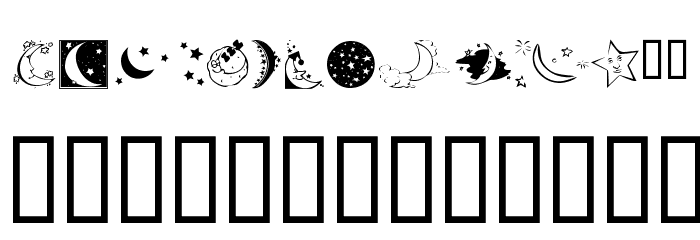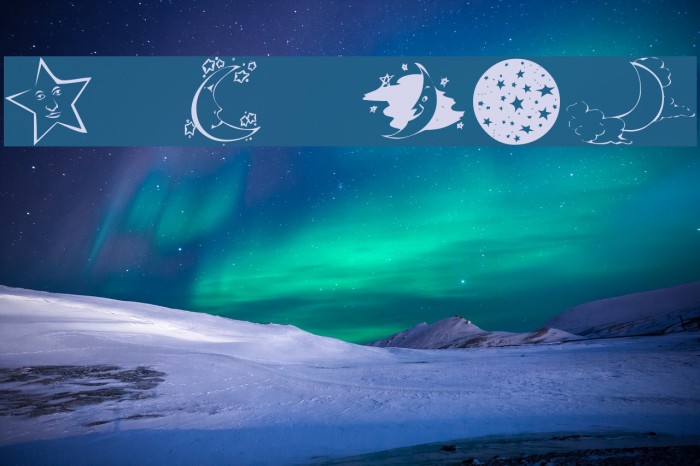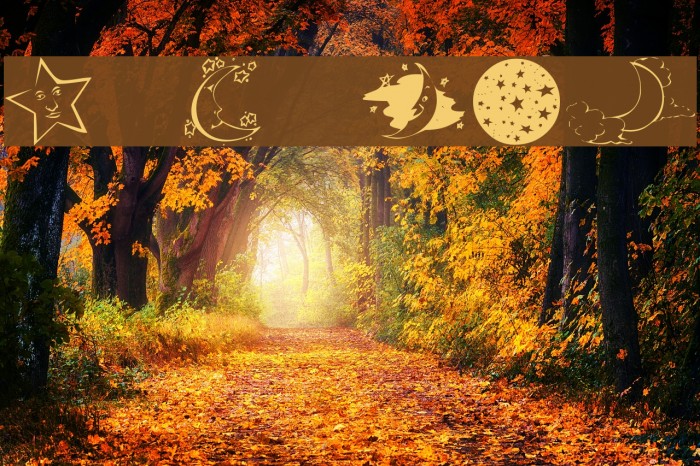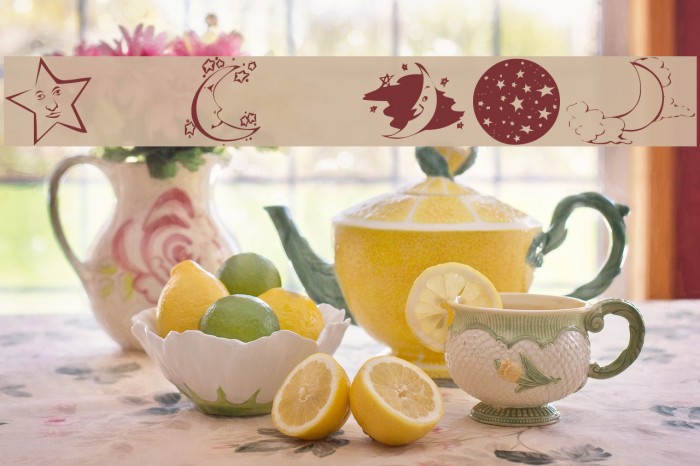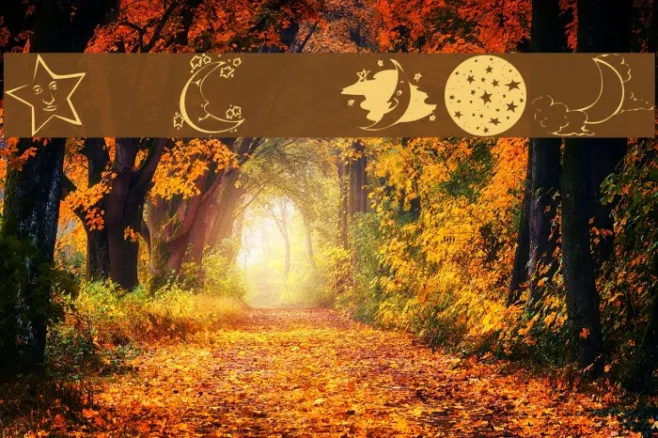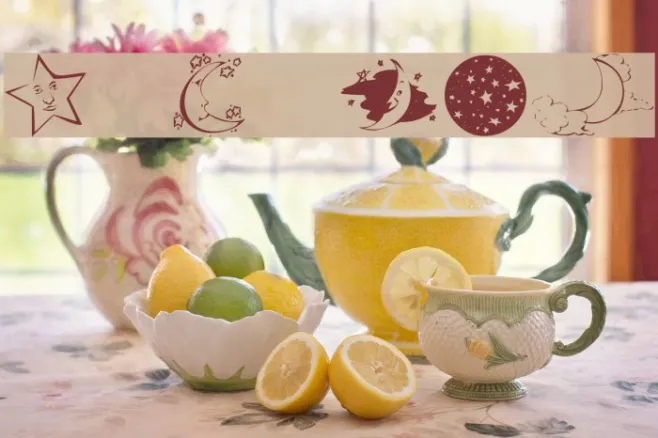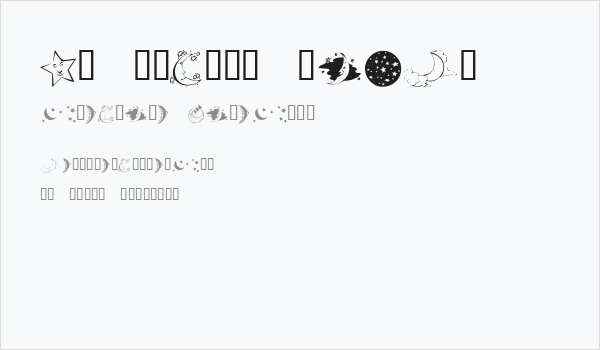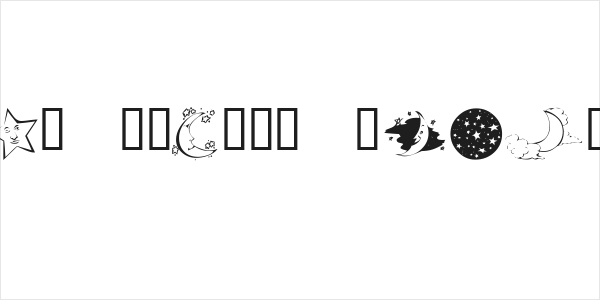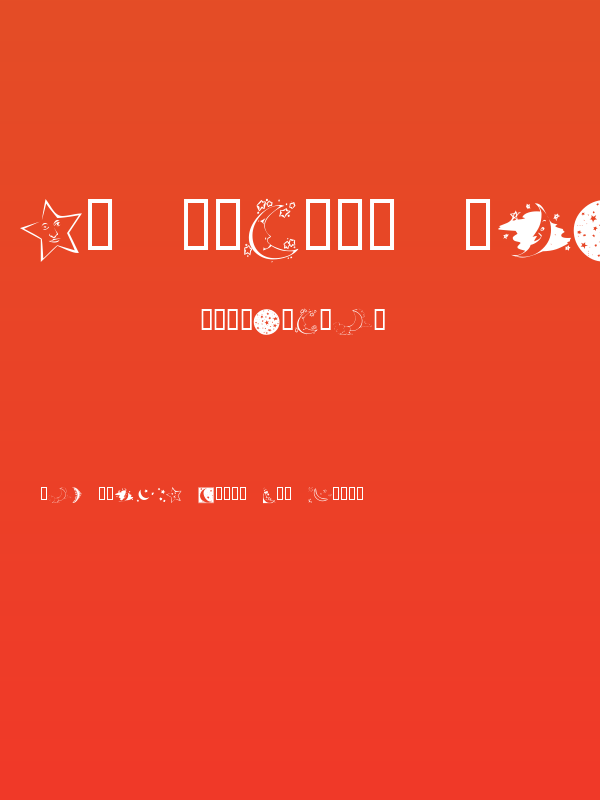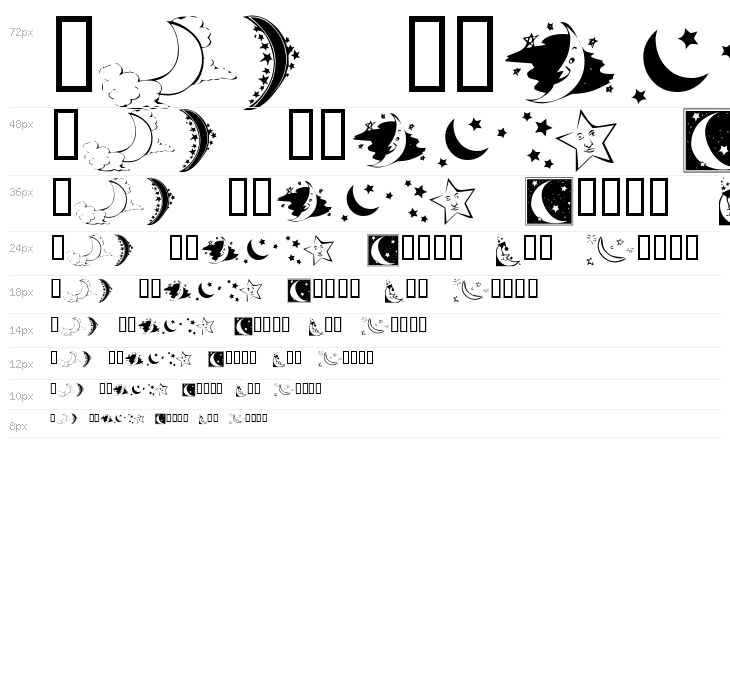
KR Starry Night Font
This decorative font features whimsical celestial elements, including stars, moons, and planets, integrated into each character. The design is playful and imaginative, capturing a sense of wonder and fantasy. The characters are adorned with intricate details, making them ideal for creative and artistic projects. The font's unique style is perfect for adding a touch of magic and charm to any design. It is particularly suitable for projects that aim to evoke a sense of night-time mystery or cosmic adventure.
A whimsical decorative font with celestial elements.
- Proposed Projects: Ideal for children's book covers, fantasy-themed invitations, astrology blogs, and creative posters.